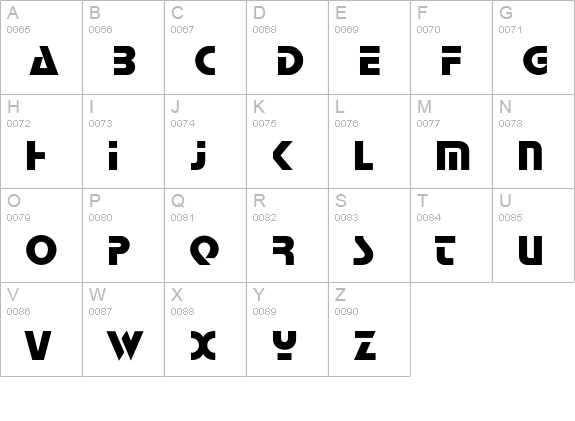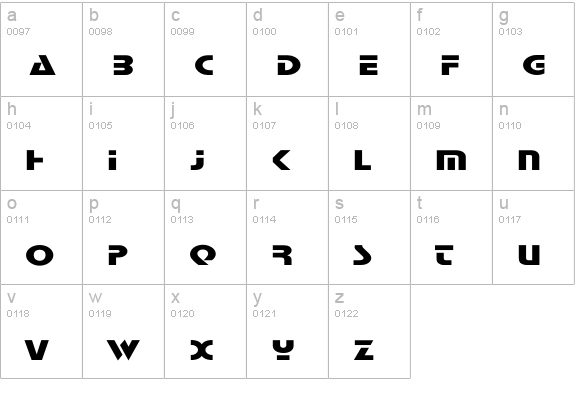
StopRegular Font Details
StopRegular font is a modern and versatile typeface that combines sleek lines with a touch of elegance. Its clean and geometric design makes it perfect for a wide range of projects, from branding to web design. The font features a balanced mix of sharp corners and smooth curves, giving it a contemporary and stylish look. What makes StopRegular font even more appealing is that it is available for free download at FontsMarket.com. This means you can easily access this high-quality font without any cost, making it a valuable addition to your font collection. Whether you're working on a professional design project or simply want to enhance your personal creations, StopRegular font is a fantastic choice that won't break the bank. Download it today and elevate your designs with this exquisite typeface.